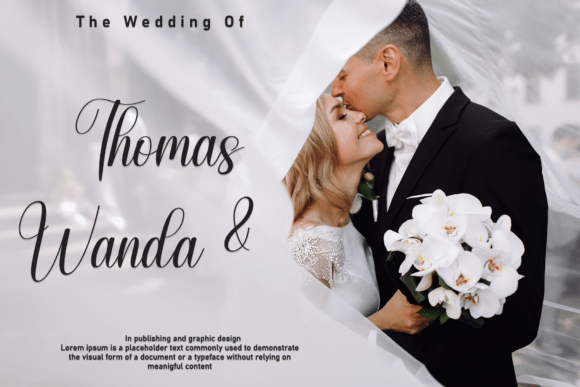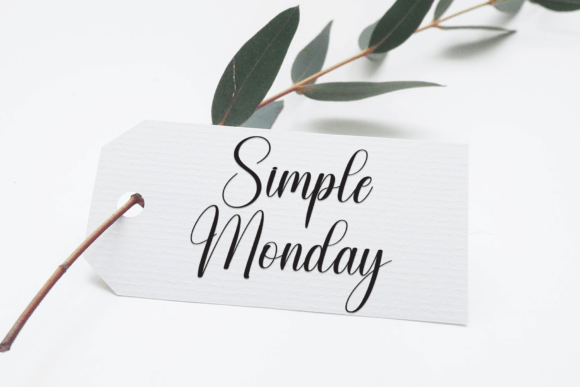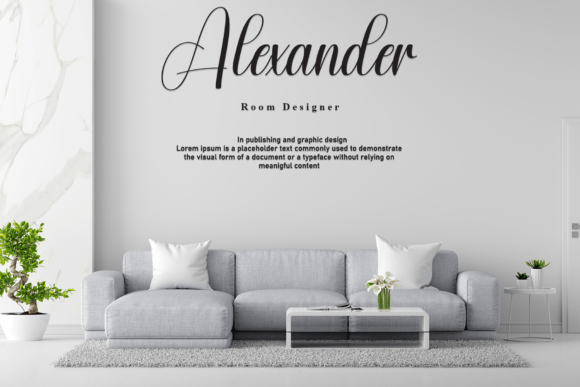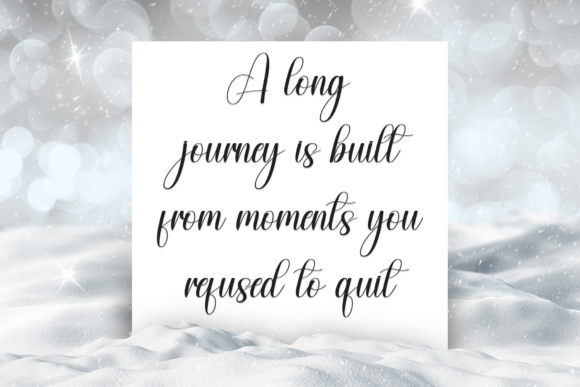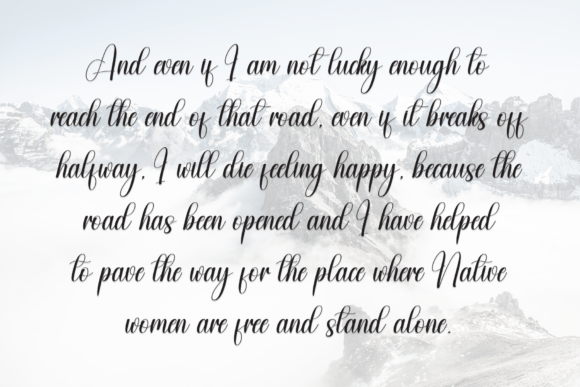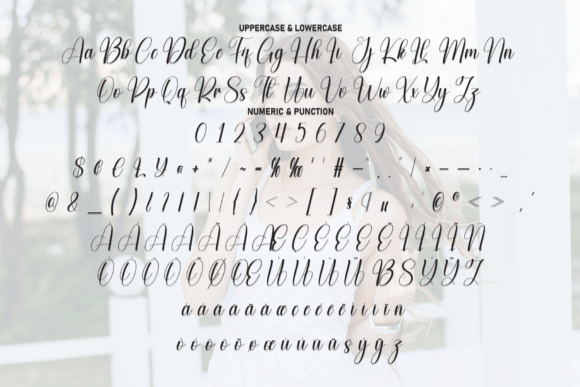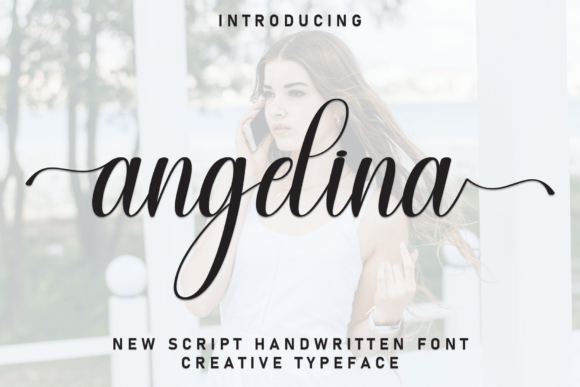
Introducing Angelina Font: The Perfect Companion for Creative Artistry
Are you a designer or crafter looking for a font that embodies a delightful charm and warm-hearted aesthetics? Look no further than Angelina Font, our beautiful handwritten display font that is sure to add a touch of whimsy to your creative projects. With its vibrant and fun characteristics, Angelina Font is the ideal companion for anyone looking to infuse their designs with a sense of joy and spontaneity.
The Characteristics of Angelina Font
Angelina Font is a unique and captivating font that boasts a range of characteristics that make it perfect for creative artistry. Its handwritten display style gives it a warm and inviting feel, while its vibrant and fun characteristics make it perfect for designs that require a touch of playfulness. Whether you’re looking to create wedding invitations, greeting cards, or any other design concept that requires a personal touch, Angelina Font is sure to deliver.
One of the standout features of Angelina Font is its ability to add a touch of elegance and sophistication to wedding invitations and greeting cards. Its delicate and whimsical style makes it perfect for communicating unique sentiments and adding a personal touch to special occasions. Whether you’re a designer looking to create custom wedding stationery or a crafter looking to create handmade greeting cards, Angelina Font is the perfect choice.
Adding a Touch of Whimsy to Your Designs
Angelina Font is more than just a font – it’s a way to add a touch of whimsy and personality to your designs. Its captivating allure promises to add a facet of joy and spontaneity to your way of communicating unique sentiments, making it perfect for designers and crafters who want to create designs that stand out from the crowd. Whether you’re looking to create designs for personal or commercial use, Angelina Font is sure to bring a smile to your face and a touch of magic to your creations.
Why Choose Angelina Font?
So why choose Angelina Font over other fonts on the market? Here are just a few reasons why designers and crafters love working with Angelina Font:
- Unique and Captivating Style: Angelina Font boasts a unique and captivating style that is sure to add a touch of personality to your designs.
- Vibrant and Fun Characteristics: Its vibrant and fun characteristics make it perfect for designs that require a touch of playfulness and whimsy.
- Perfect for Wedding Invitations and Greeting Cards: Angelina Font is perfect for wedding invitations, greeting cards, and any other design concept that requires a personal touch.
Tips for Using Angelina Font
Here are a few tips for using Angelina Font in your designs:
- Pair with Other Fonts: Angelina Font pairs perfectly with other fonts, so don’t be afraid to experiment with different font combinations.
- Use for Headings and Titles: Angelina Font is perfect for headings and titles, where its vibrant and fun characteristics can really shine.
- Add a Personal Touch: Use Angelina Font to add a personal touch to your designs, whether you’re creating custom wedding stationery or handmade greeting cards.
In conclusion, Angelina Font is a beautiful handwritten display font that is perfect for designers and crafters looking to add a touch of whimsy and personality to their designs. With its vibrant and fun characteristics, Angelina Font is sure to bring a smile to your face and a touch of magic to your creations. Whether you’re looking to create wedding invitations, greeting cards, or any other design concept that requires a personal touch, Angelina Font is the perfect choice. Experience the memorable charm of this sweet and friendly font today!